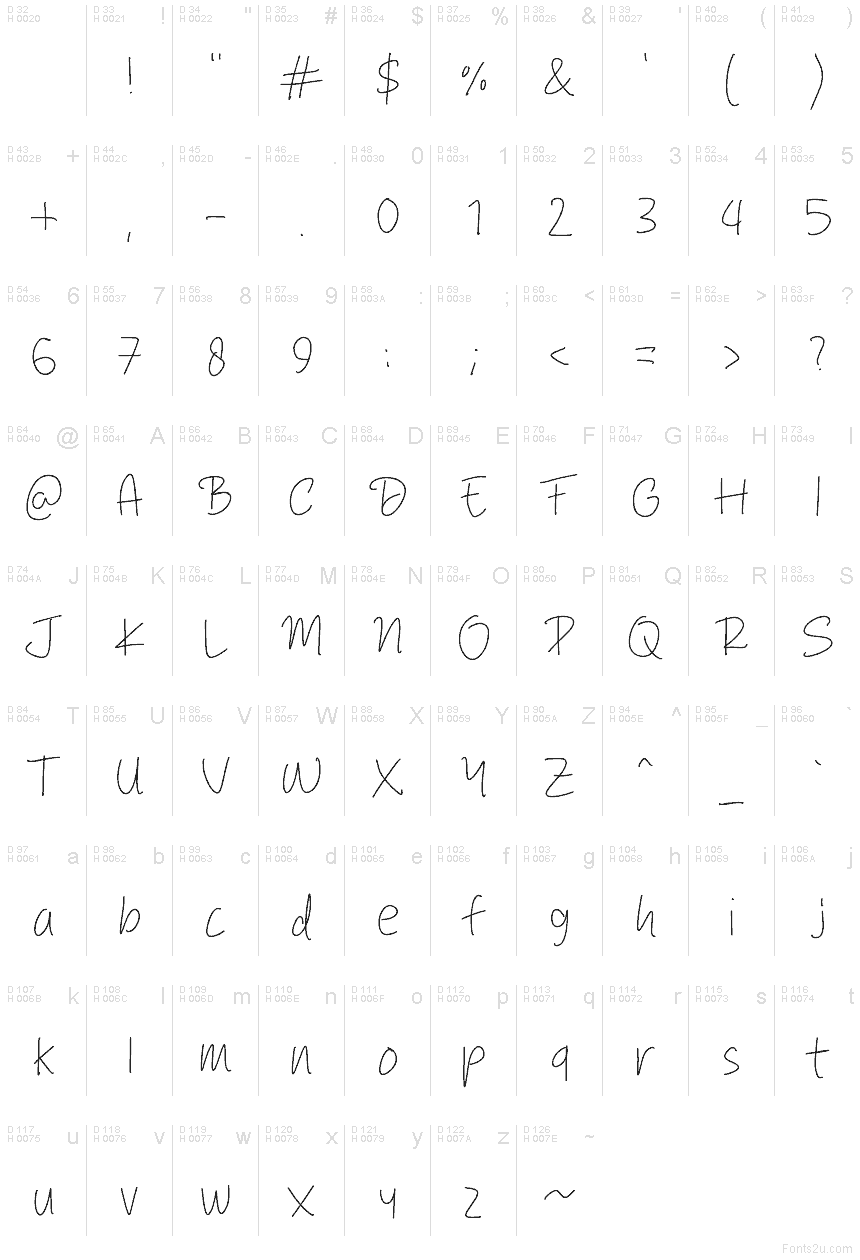
Creative Kids
Creative Kids font by Origin Type is a free handwritten font with a light weight and informal appeal. The font is designed with a limited visual appearance as the lines are thin, and the general aesthetic seems hand-drawn. Use it in projects where you need that friendly, relaxed style characterized by playful letterforms.
Most commonly, Creative Kids fonts look beautiful in children’s projects such as invitation cards to birthdays or play parties. Additionally, creative outlets can involve packaging design, labels for toys, interior design items such as posters, activity book covers; games; stationery items and similar product types.